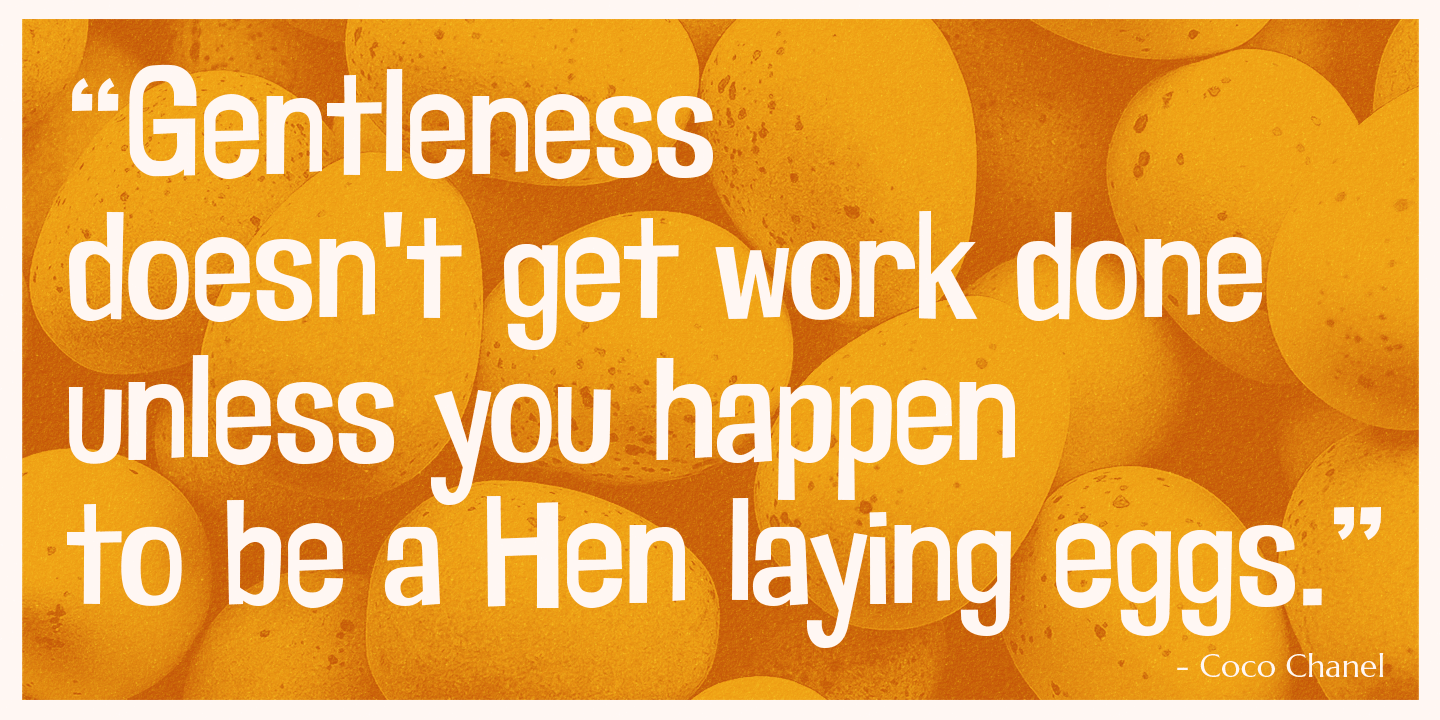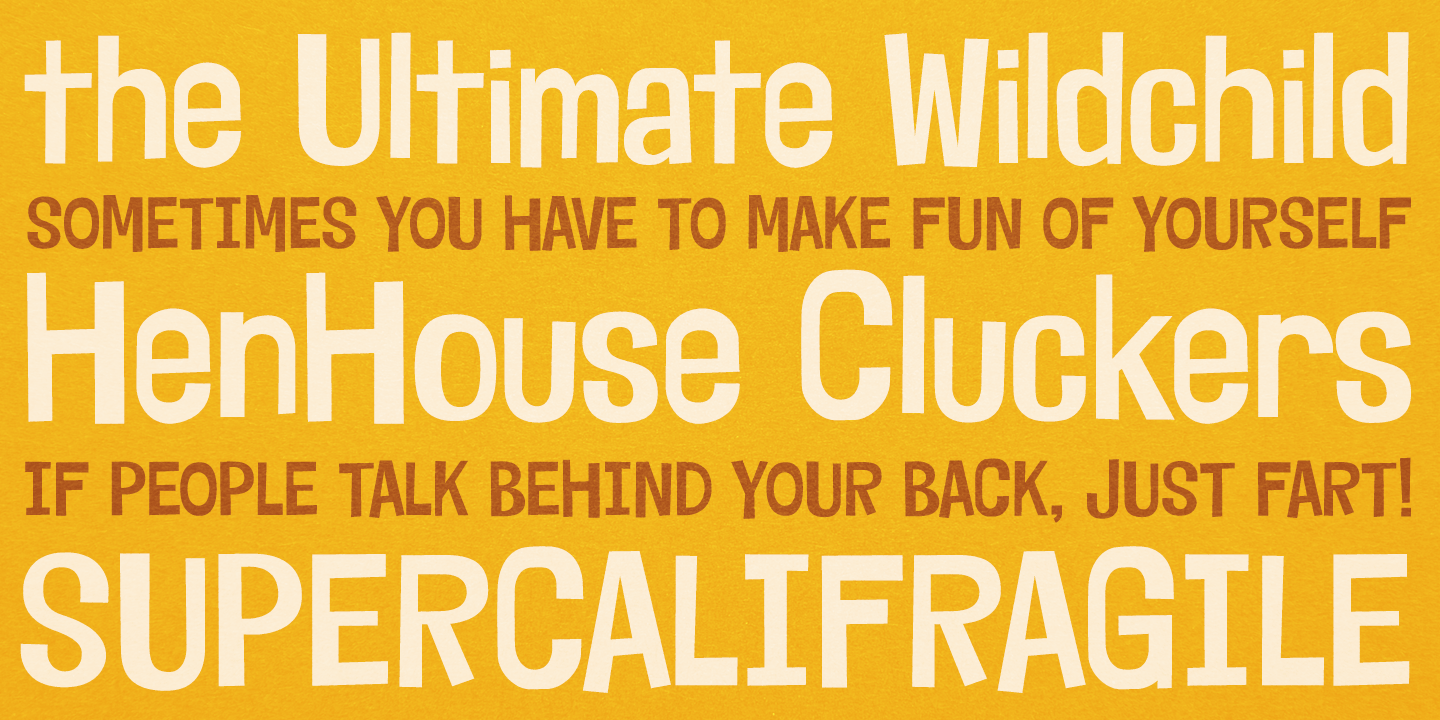
Inspired by the titling of the classic cartoon, "Mother was a Rooster", comes this offbeat typeface. The perfect font to add some spunk to your designs!